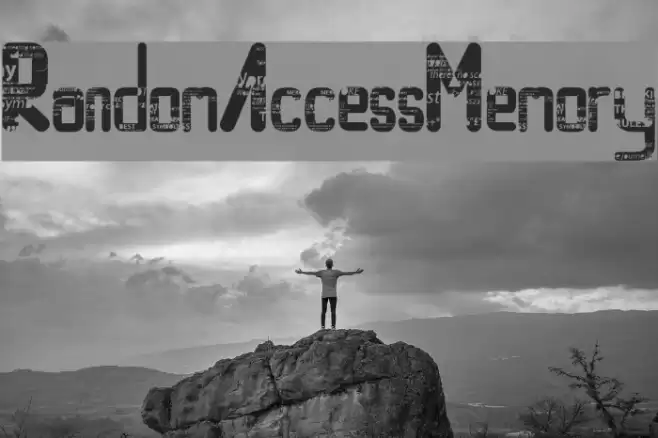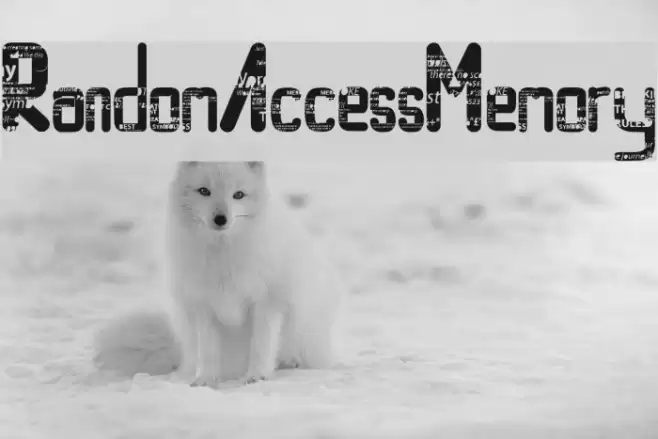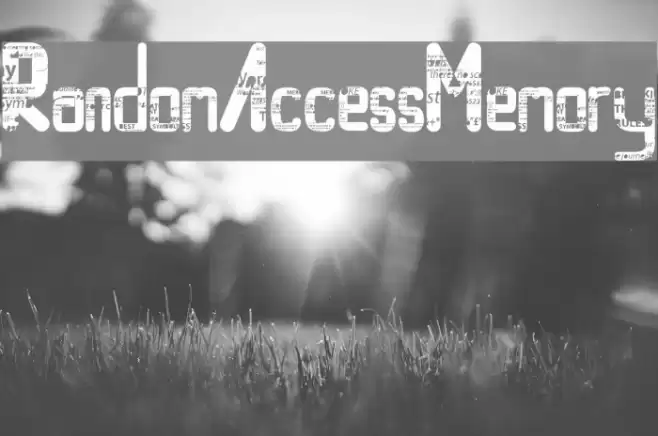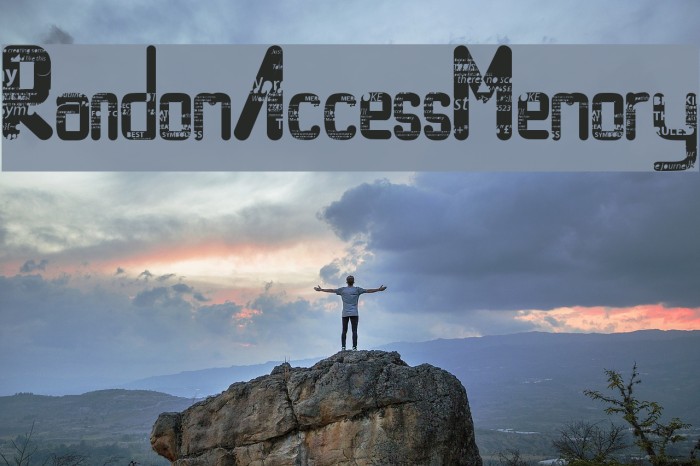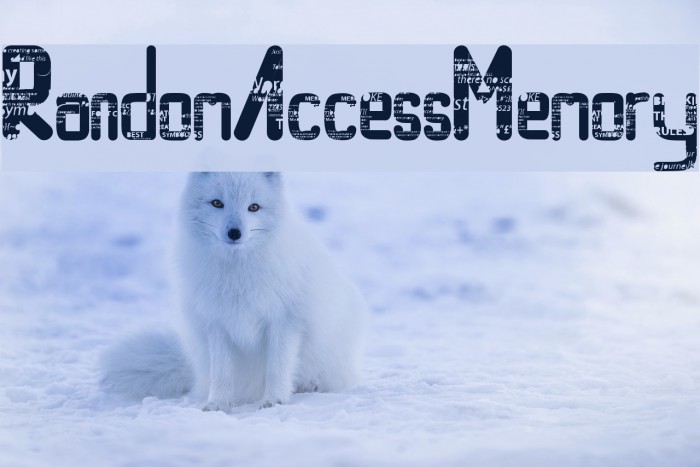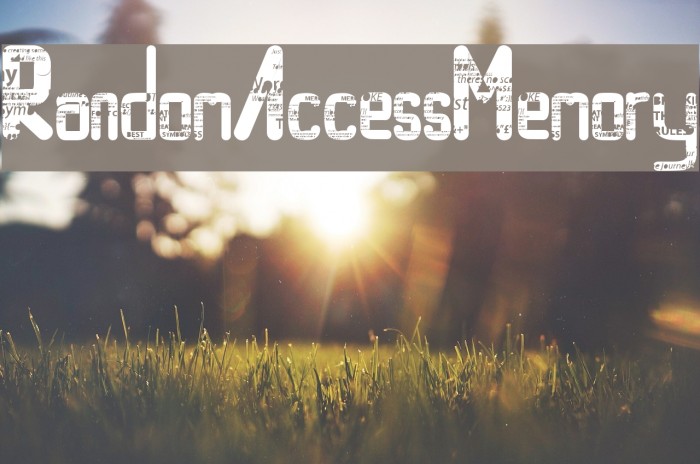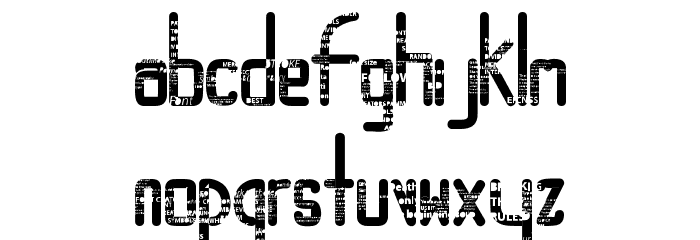
RandomAccessMemory Font
RandomAccessMemory Description
This font features a unique, distressed style with a digital, glitch-like appearance. The uppercase letters are bold and blocky, with a textured overlay that gives them a worn, industrial look. The lowercase letters maintain a similar style but are slightly more condensed, adding to the overall rugged aesthetic. The numerals are clean and bold, providing a stark contrast to the textured letters. Special characters are included, maintaining the same distressed style. This font is ideal for projects that require a modern, edgy look with a touch of vintage flair.
A bold, distressed font with a digital, glitch-like appearance from Decorative fonts.
- Proposed Projects: Ideal for digital art, music album covers, posters, and edgy branding projects.
- Overall Style: Modern, Vintage